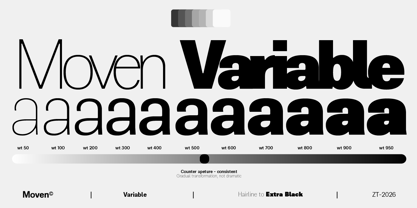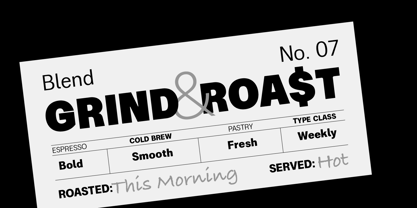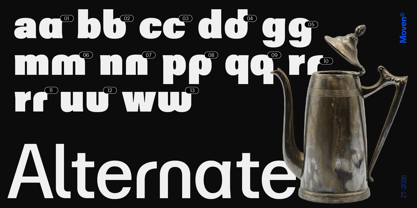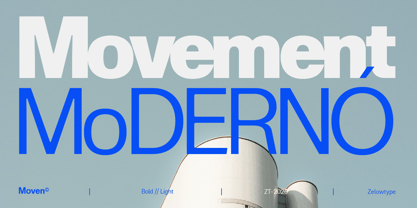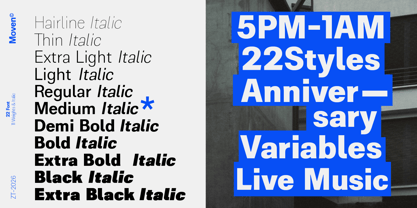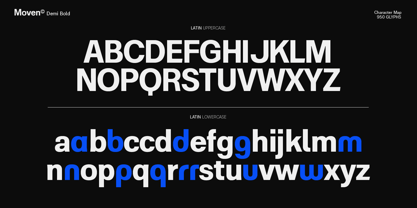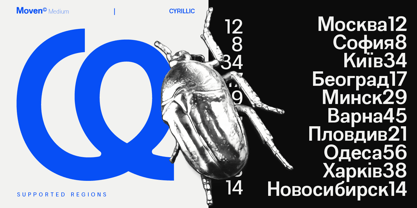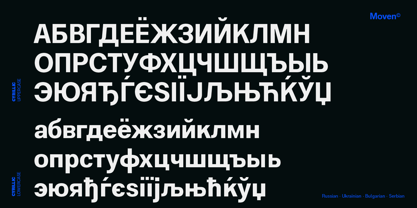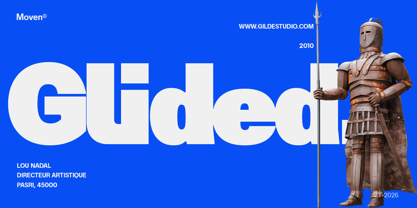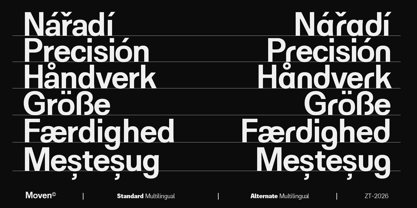
ZT Moven
von Zelow Type
Die Schriftfamilie ZT Moven wurde von Khairun Nas entworfen und von Zelow Type veröffentlicht. ZT Moven enthält 24 Stile und Familienpaketoptionen. Mehr über diese Familie
ZT Moven is a geometric sans-serif built on a principle of restrained transformation. Rather than reshaping each letter dramatically as weight increases, the family holds a single skeleton from Hairline to ExtraBlack, letting counters open only as much as structurally necessary — never pinching shut in the lightest weights, never clogging in the heaviest. Corners are treated selectively: sharp on the outer terminals, rounded through the counters, keeping the geometry precise without softening into a generic rounded sans.
That same restraint carries into its script commitment. Most dual-script sans serifs treat Cyrillic as a Latin skeleton with substituted letters. ZT Moven treats it as a second design problem: Bulgarian and Serbian are drawn as their own regional traditions, with dedicated localised forms, rather than variations on shared Russian letterforms.
With 22 styles built from eleven weights and matching italics — plus a variable font spanning the full wt 50–950 axis, 950 glyphs, stylistic alternates, old-style and tabular figures, case-sensitive forms, and an extended currency set — ZT Moven is suited to identity systems, editorial typography, and interfaces that move between Latin and Cyrillic markets without switching typefaces.
ZT Moven is designed by Khairunnas at Zelowtype, an independent type foundry based in Tapaktuan, Aceh, Indonesia.